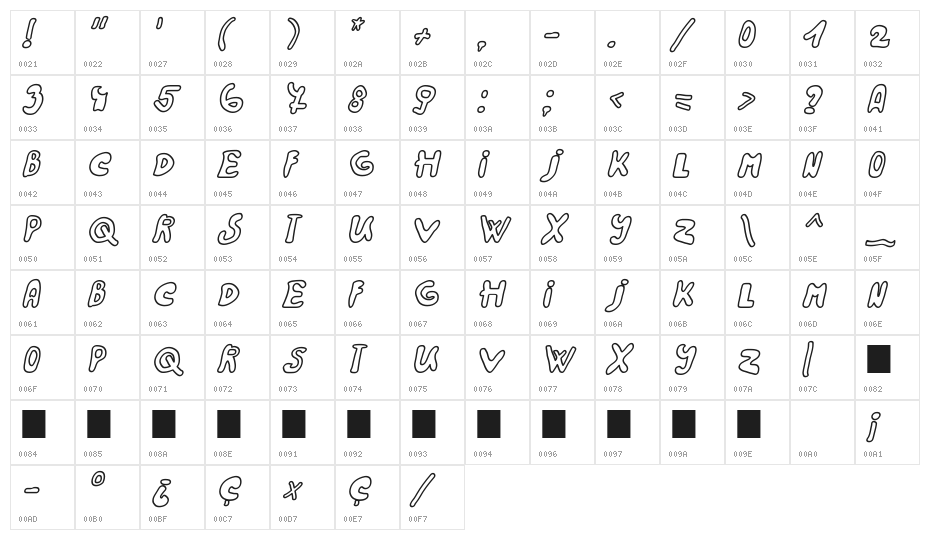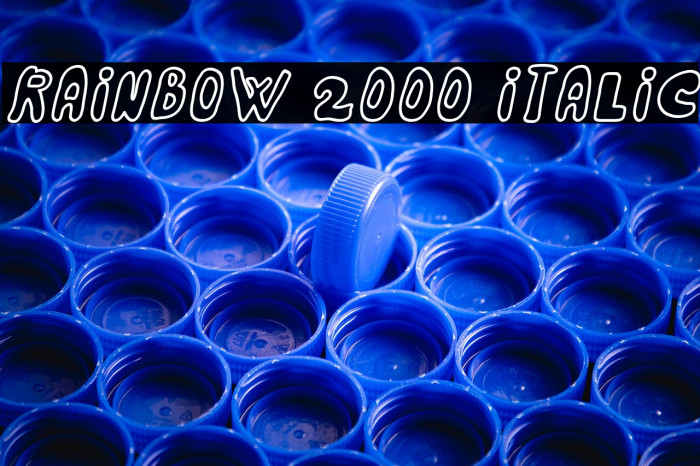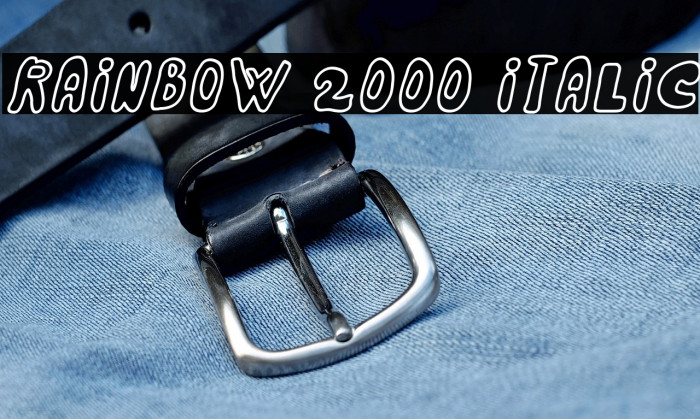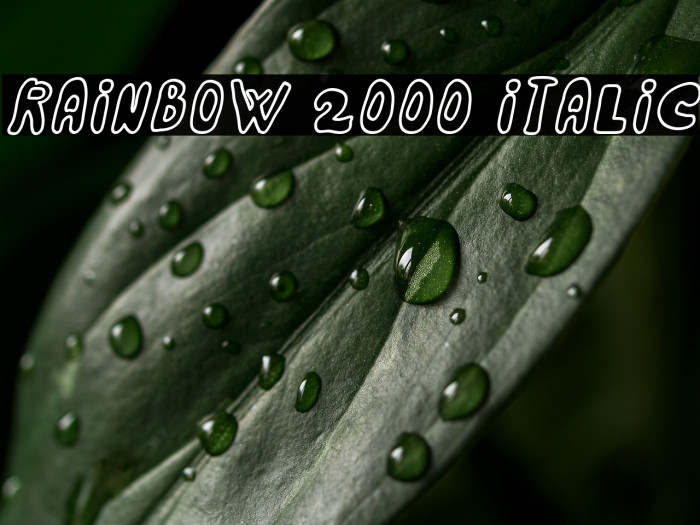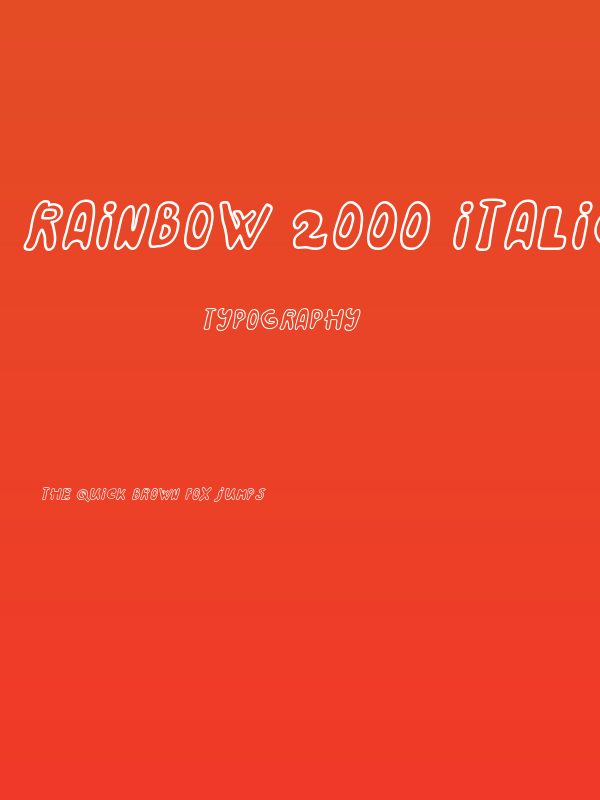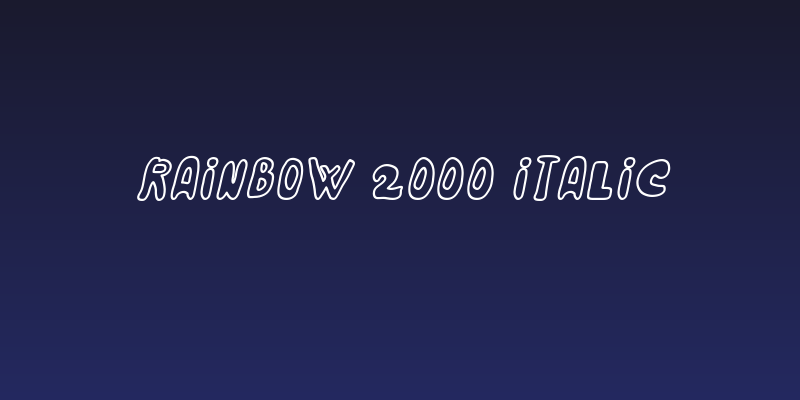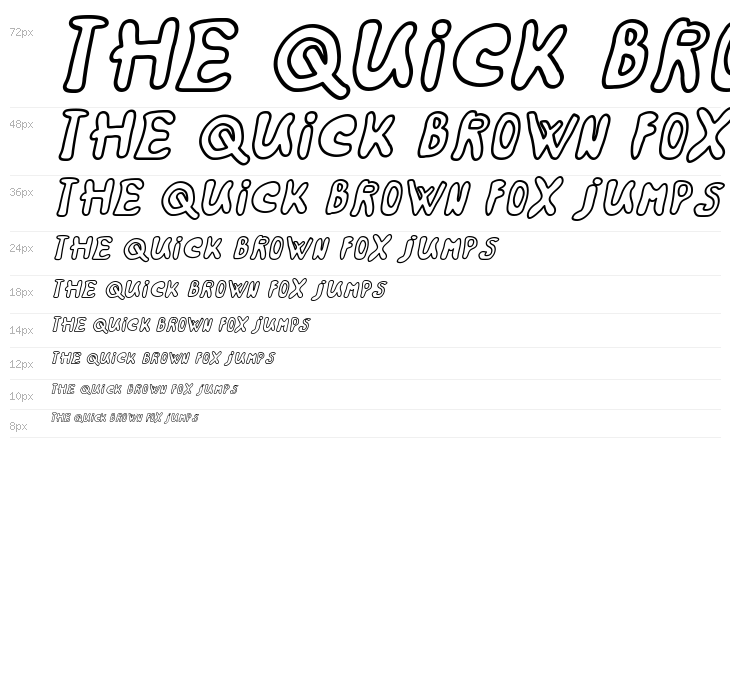
Rainbow 2000 Italic Font
Rainbow 2000 Italic Description
This playful and energetic font features a bold, outlined style with a slight italic slant, giving it a dynamic and lively appearance. The characters are rounded and have a hand-drawn feel, with consistent stroke thickness throughout. The uppercase and lowercase letters maintain a uniform style, while the numerals and special characters complement the overall design. The font's whimsical nature makes it ideal for projects that require a fun and informal touch.
| Proposed Projects | Ideal for children's book covers, playful branding, party invitations, and creative posters. |